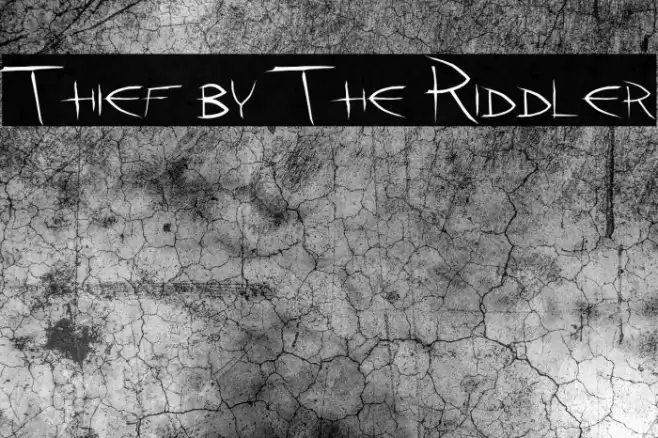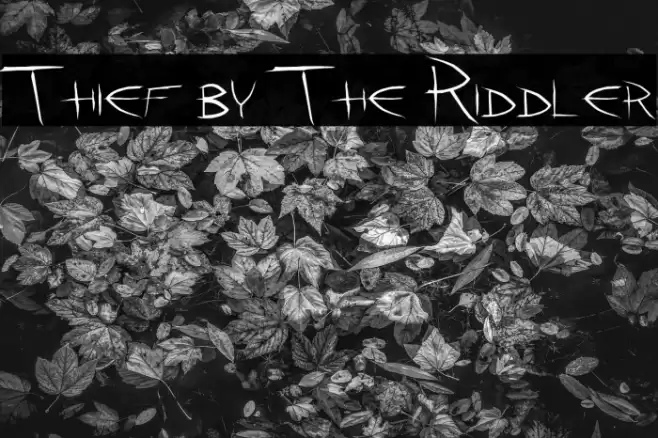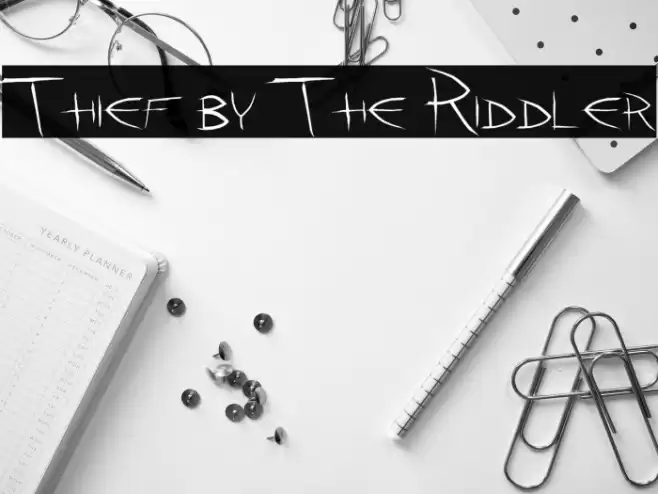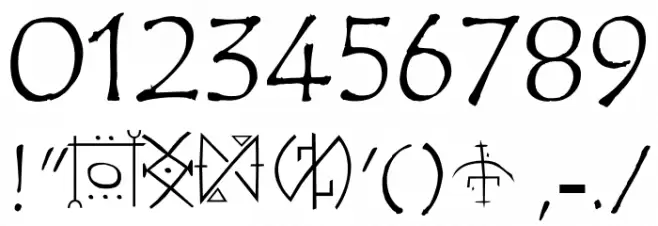
Thief by The Riddler Font
Thief by The Riddler Description
A sharp, angular, and irregular handwritten display font with thin strokes and dramatic, spiky terminals, evoking a mysterious or unsettling atmosphere. The characters are unevenly sized and spaced, with unique, cryptic symbols included among the punctuation.
Edgy, spiky handwritten display font with a mysterious vibe from Uncategorized fonts.
- Proposed Projects: Horror movie posters, escape room branding, mystery game titles, Halloween event flyers, graphic novels, or themed party invitations.
- Weight: Light
- Contrast: High
- Overall Style: Decorative, Mysterious, Edgy
- Use Case: Headlines, Posters, Logos, Themed Graphics